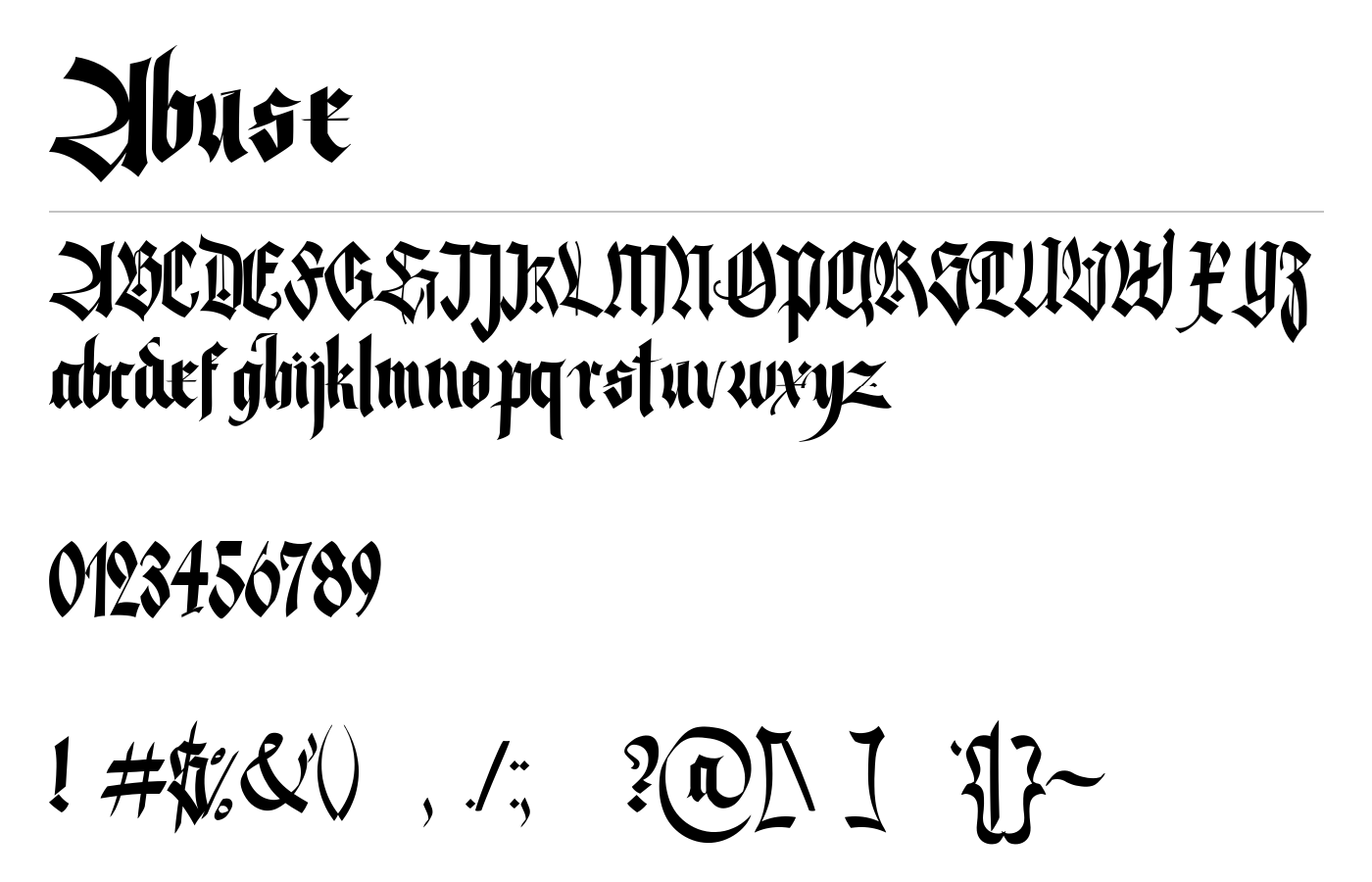
Abuse Font is a bold, blackletter-style typeface with sharp, dramatic strokes and high contrast between thick and thin lines, embodying a vintage Gothic flair. Its dense, angular letterforms and ornate details make it ideal for creating strong, impactful headlines or logos that convey a sense of tradition, mystery, or rebellion. This font works best in designs that aim to evoke historical or edgy moods, such as posters, branding for music or alternative fashion, and editorial titles.
Abuse Font
About Abuse Font